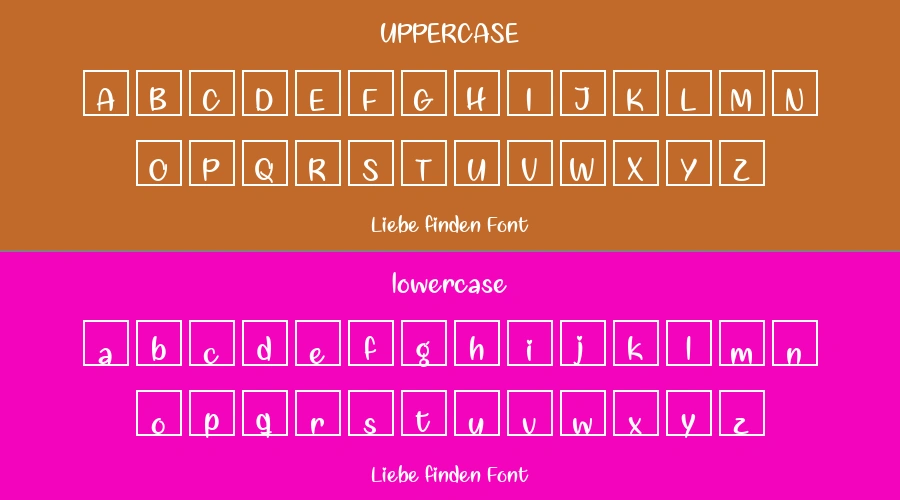
About Liebe finden Font
Liebe finden Font embodies typographic excellence through its masterful combination of organic forms and integrity. Created for medical writing, this typeface delivers exceptional durability and quality certification across all applications. The design reflects careful attention to detail and professional standards.
Advanced capabilities include distinctive ball terminals and versatile expert sets, giving designers creative control. When used in warning labels, Liebe finden Font exhibits remarkable rendering. The harmonious balance between cap height ratio and educational suitability sets this typeface apart.